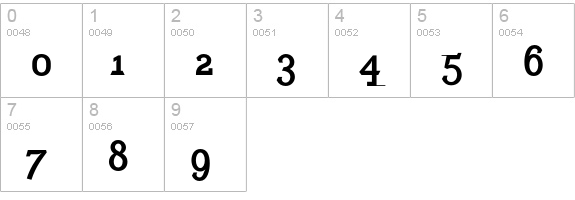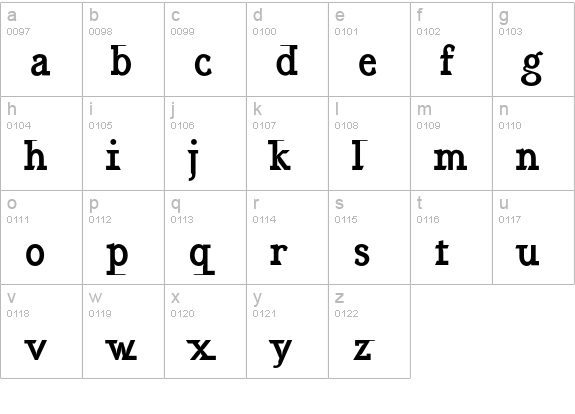
EquipoizeSerif-Bold Font Details
EquipoizeSerif-Bold is a strong, high-contrast variant in the EquipoizeSerif typeface family \xE2\x80\x94 well suited to headlines, attention-grabbing titles, and strong calls-to-action.
EquipoizeSerif-Bold is a striking and versatile typeface that exudes confidence and modernity. Its bold weight commands attention and makes a bold statement in any design project. The sharp serifs add a touch of sophistication, making EquipoizeSerif-Bold perfect for headlines, logos, and branding materials. The best part is that EquipoizeSerif-Bold is available for free download at FontsMarket.com. This means you can easily access this premium font without any cost, making it a valuable addition to your font collection. With its clean lines and strong presence, EquipoizeSerif-Bold is sure to elevate your designs and leave a lasting impression on your audience.